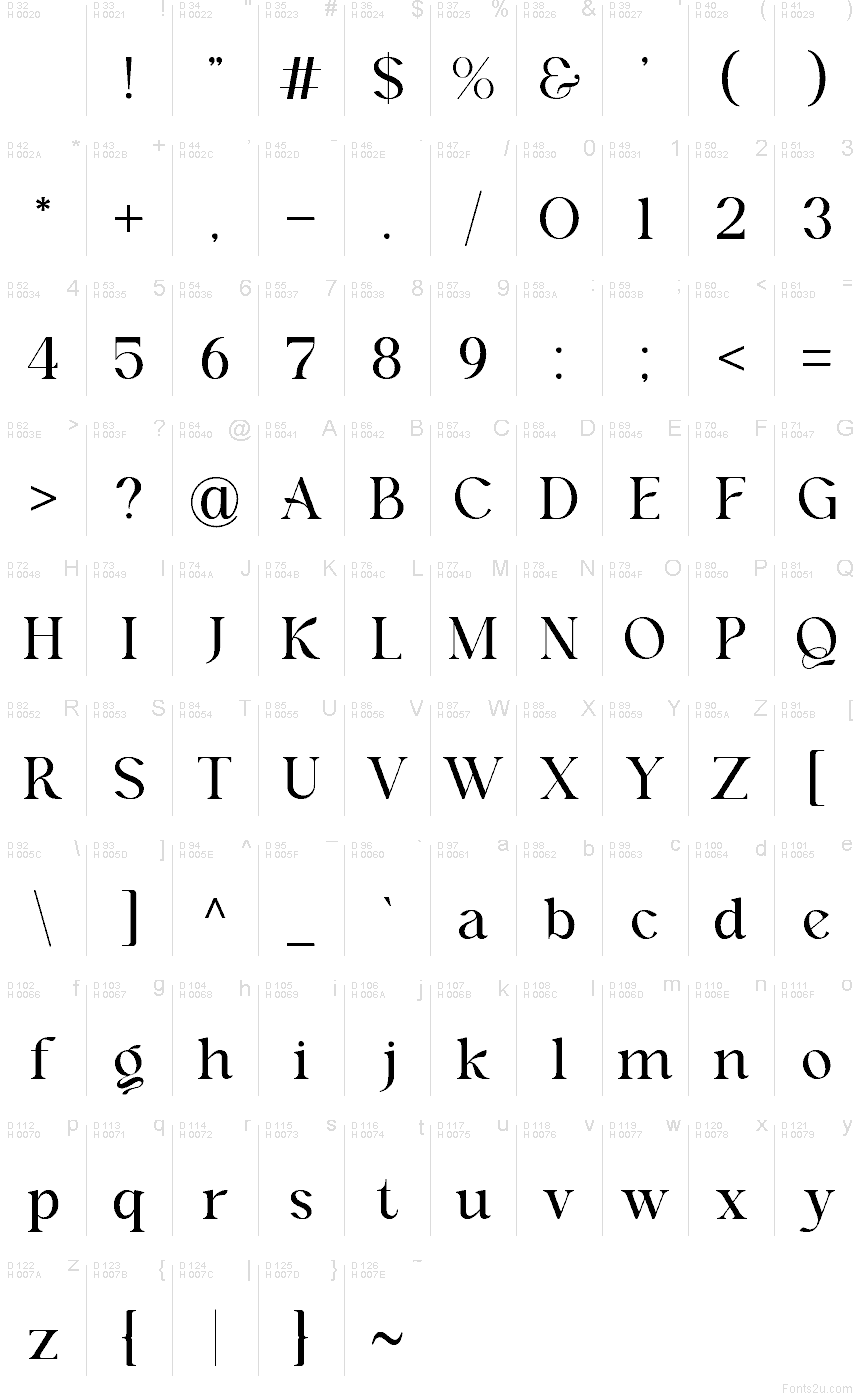
Githals
Githals font by ErmediaStudio is a free serif font that finally bridges the gap between glamorous branding and everyday readability. Its letters feel inky and deliberate, with smooth curves flowing into sharply cut edges, giving you that refined, fashion-editorial look without becoming fussy or fragile at smaller sizes. The spacing is calm and steady, so even bold titles keep their poise instead of looking cramped or shouty.
Using Githals in your work means headlines, logos, book covers, beauty packaging, and upscale invitations all share the same confident voice. This free font also shines on magazine-style layouts, portfolios, and hero text on minimalist websites. Pair Githals with a clean geometric sans for body copy, and let this serif typeface handle the names, titles, and key phrases you want people to remember.